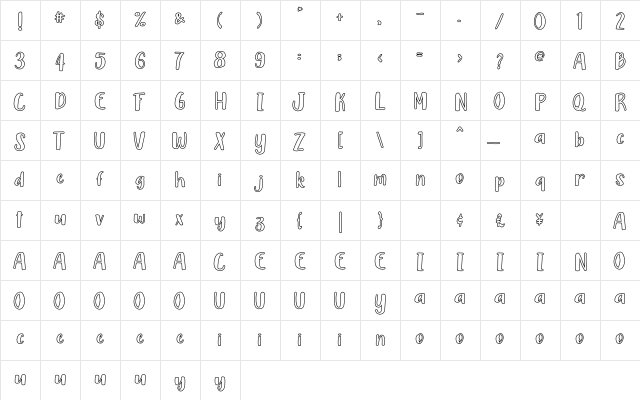
Blue Bird Regular
Design Context for Blue Bird Typeface
Blue Bird is a composed and adaptable typeface that performs quietly and consistently across a wide range of design contexts.